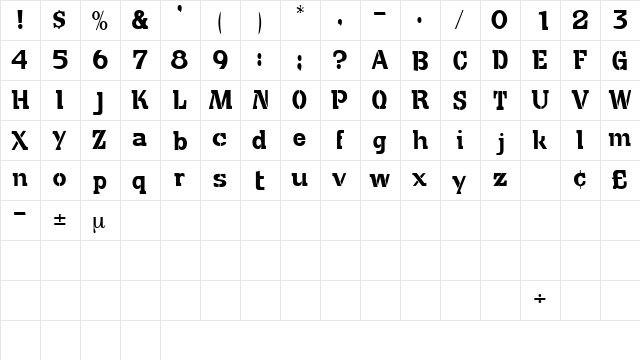
CuteCrateDisplaySSK Regular
Design Context for CuteCrateDisplaySSK Typeface
CuteCrateDisplaySSK is built around its visual character rather than neutral utility — its distinctive forms are designed to make an impression at display sizes.
Font Pairing: Pair with a clean neutral sans-serif for body copy to let CuteCrateDisplaySSK's character lead without overwhelming the composition.
Pro Tip: Use CuteCrateDisplaySSK exclusively at display sizes — it was designed to be seen, not read at length. Let a neutral companion handle body copy.